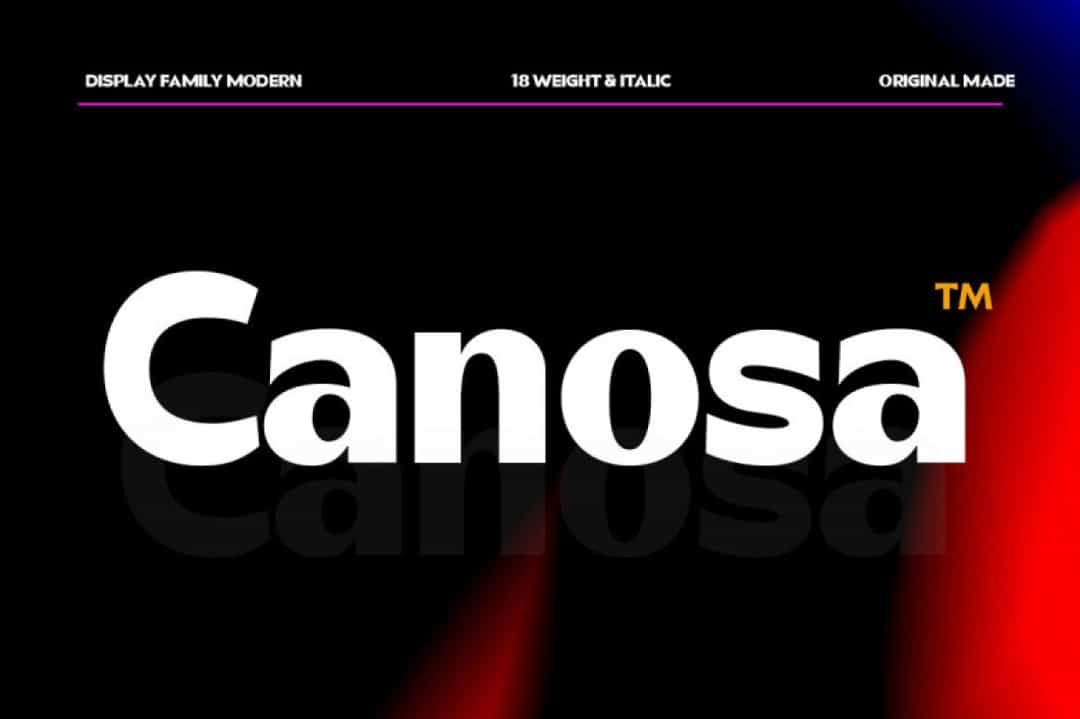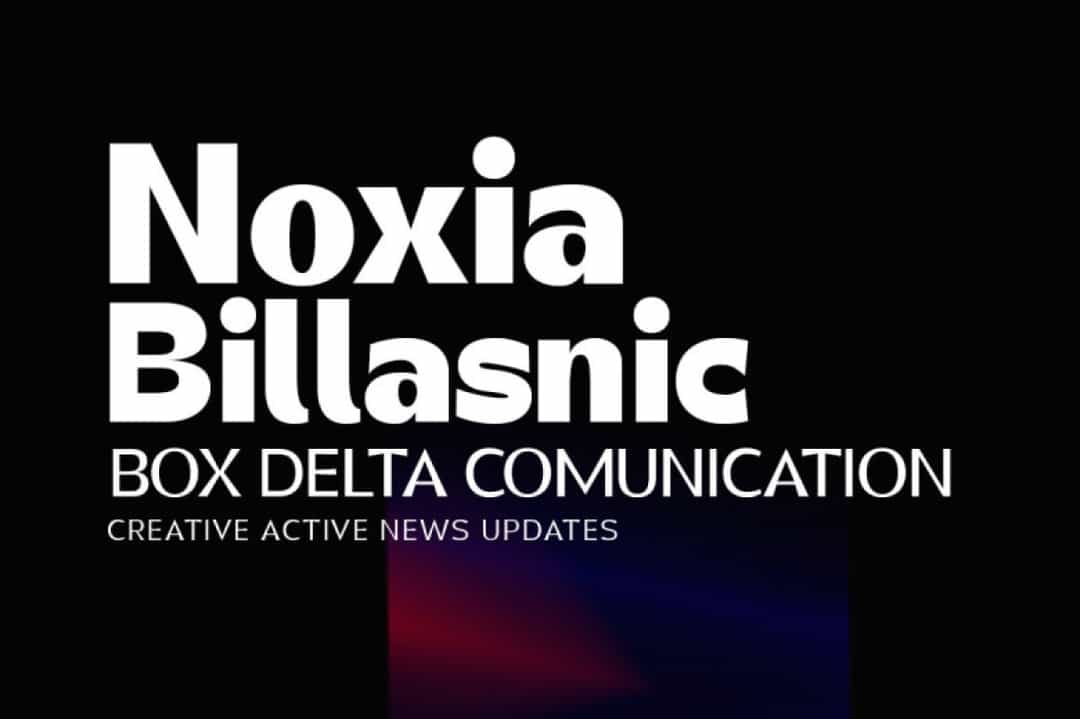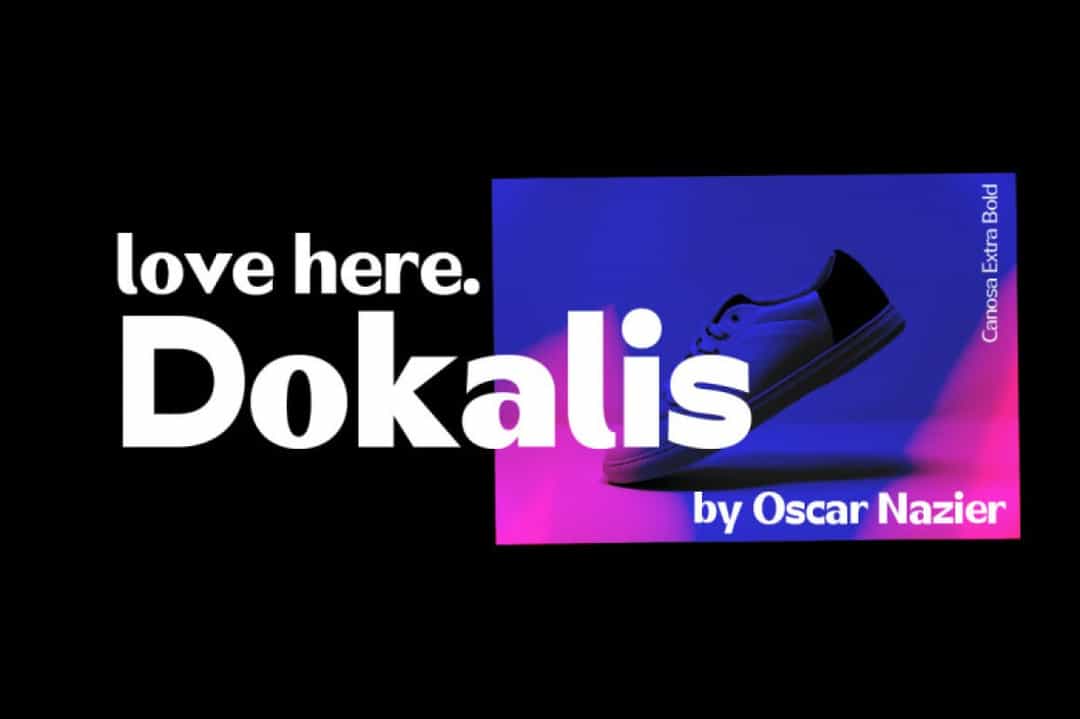
Canosa font is a stylish, contemporary, and striking sans-serif display font family that stands out with its upright and oblique styles and seven weight options ranging from thin to thick. Ideal for all projects while remaining modern and easy-to-read.